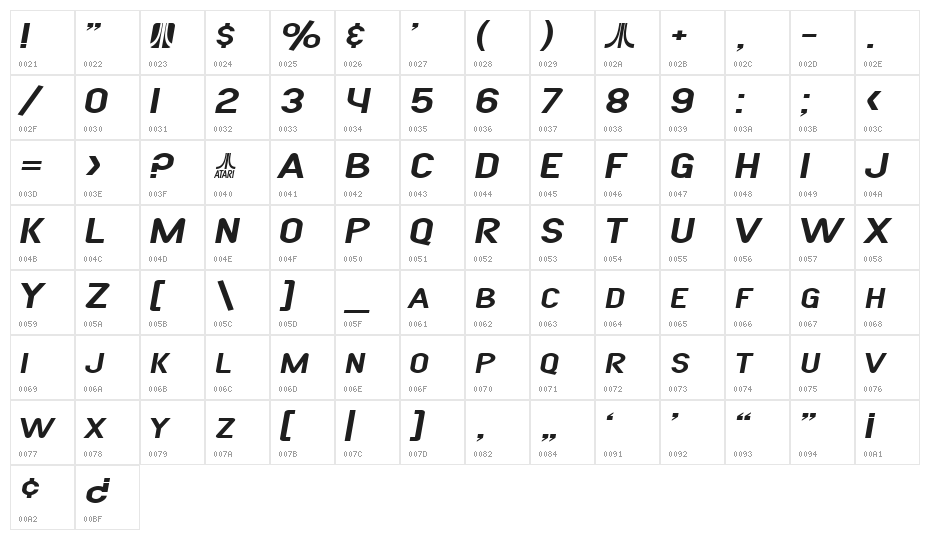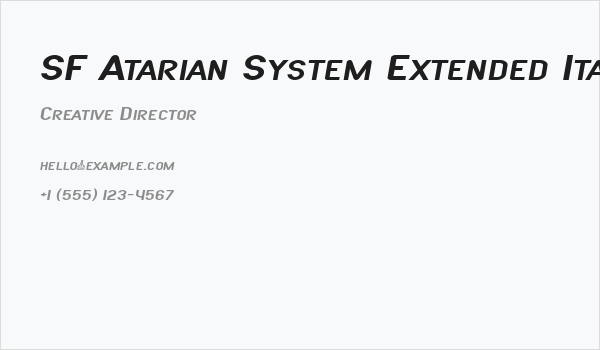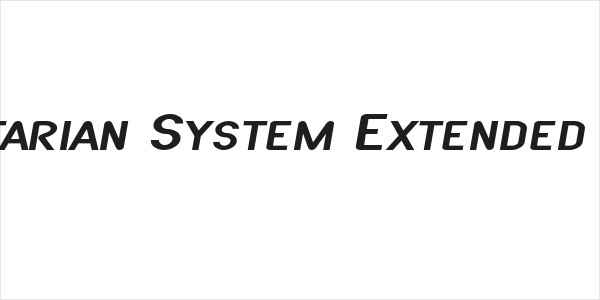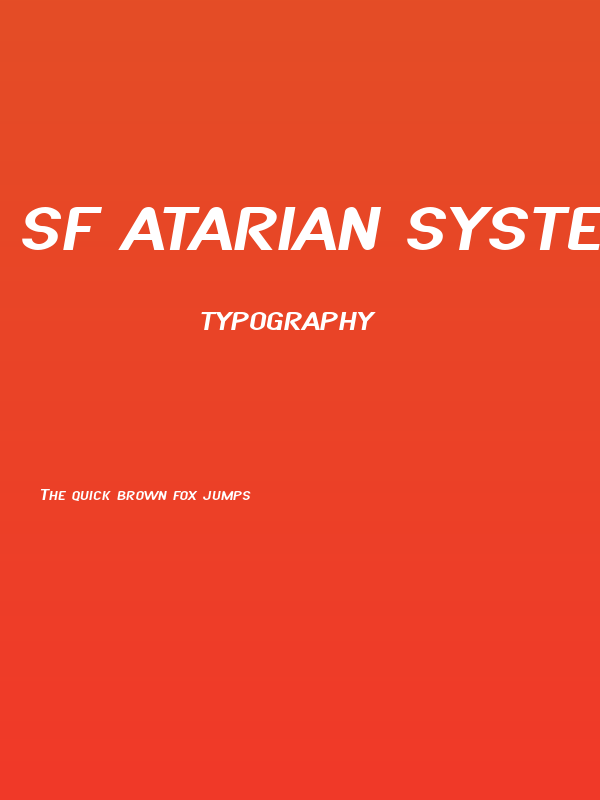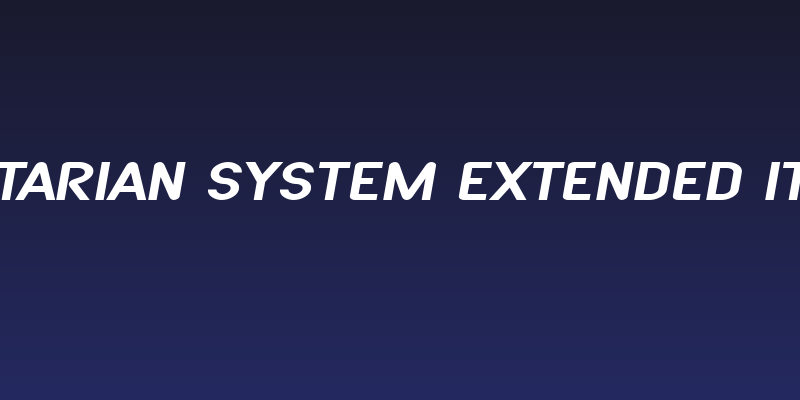
SF Atarian System Extended Italic Font
SF Atarian System Extended Italic Description
This typeface features a modern, sleek design with an italic slant, giving it a dynamic and forward-moving appearance. The characters are bold and extended, providing a strong presence on the page. The sans-serif style ensures clarity and readability, while the italic angle adds a touch of elegance and speed. The numbers and special characters maintain the same boldness and slant, ensuring consistency across all elements. This font is well-suited for projects that require a contemporary and assertive look.
| Proposed Projects | Ideal for branding, advertising, sports team logos, and modern web design. |